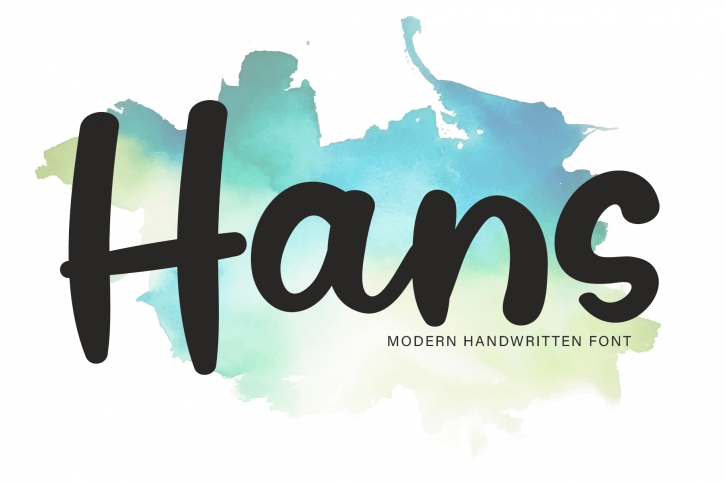
Hans is a simple and neat handwritten font. This versatile font has a wide spectrum of applications ranging from greeting cards to headlines and is guaranteed to add a natural, organic feel to your next project!